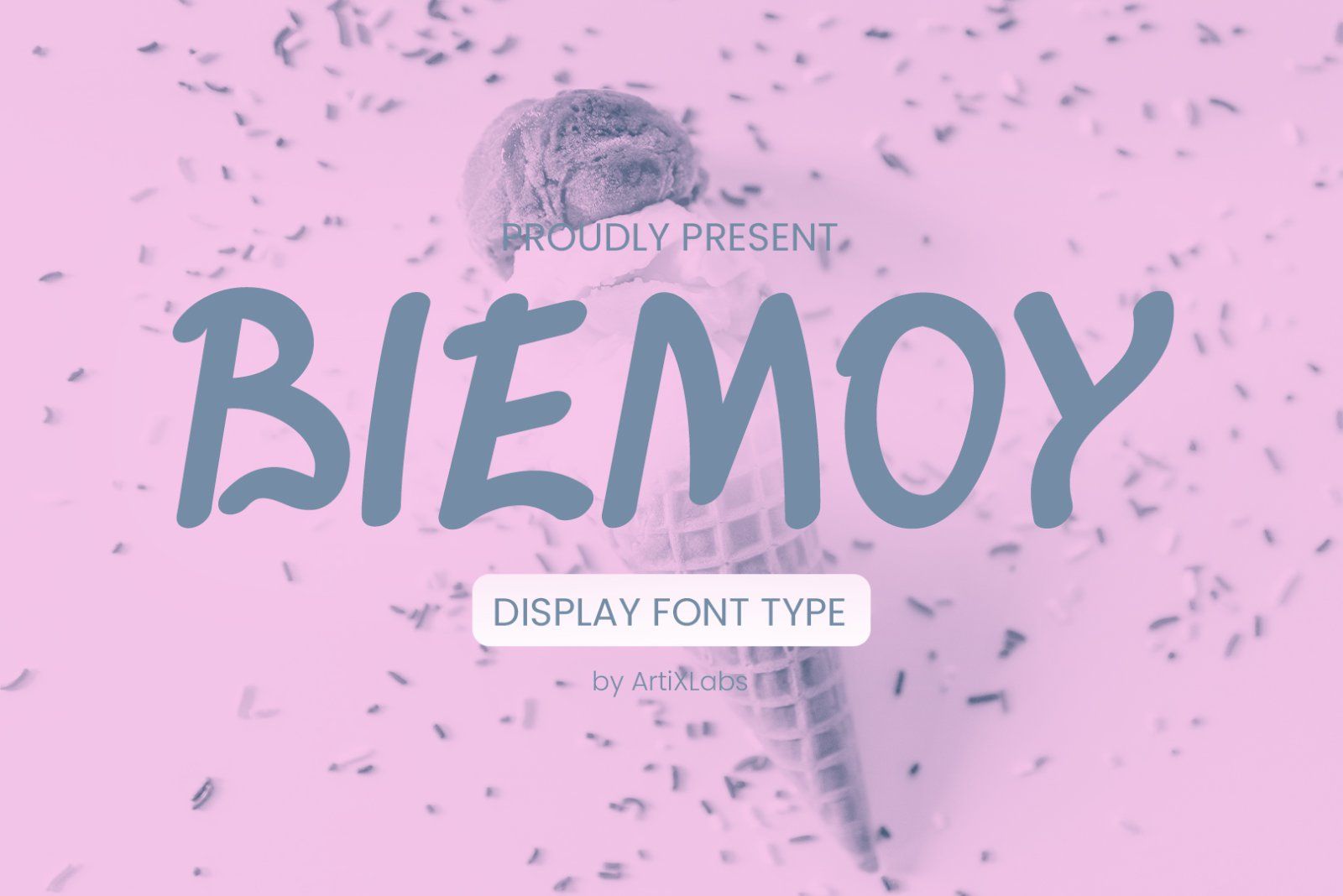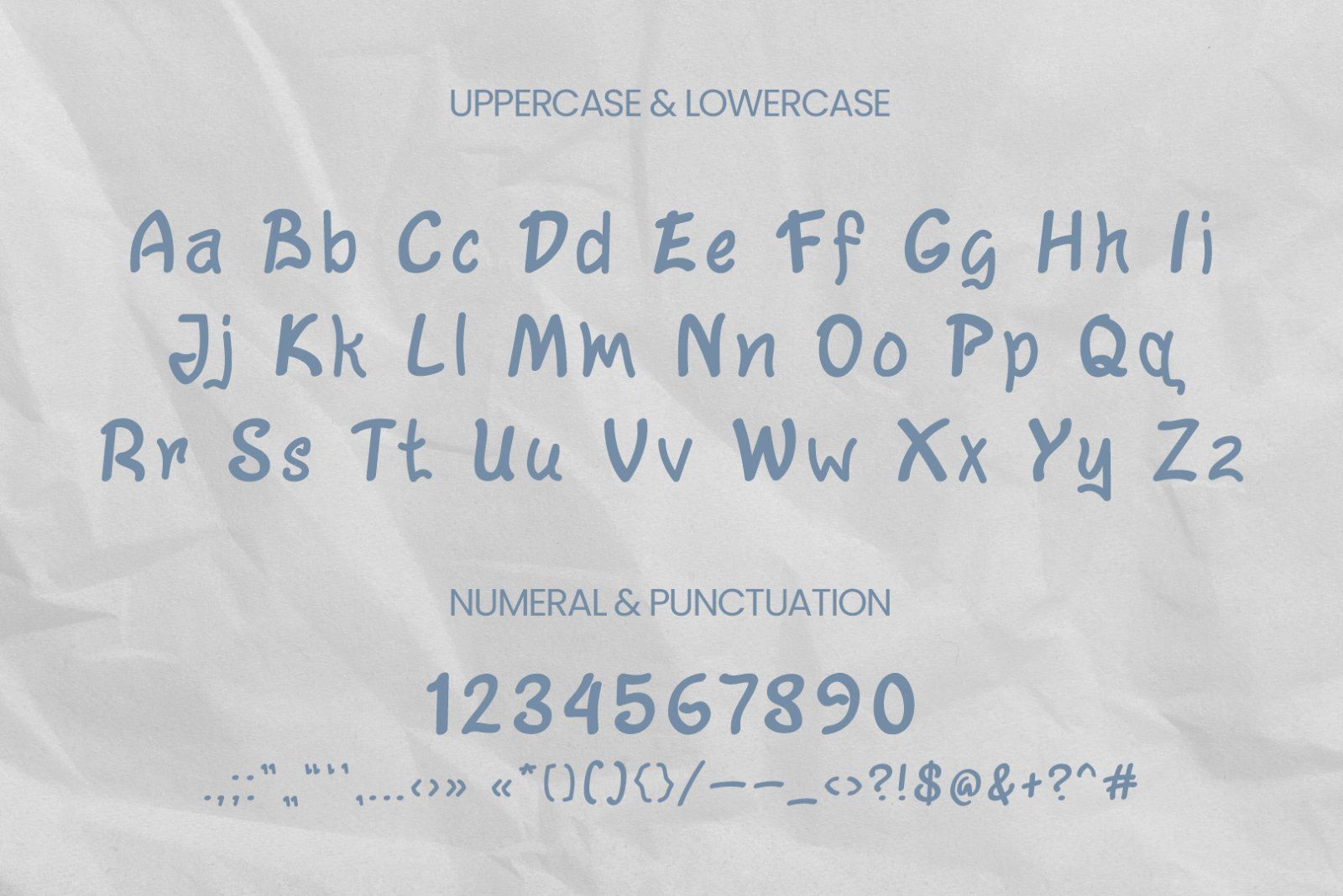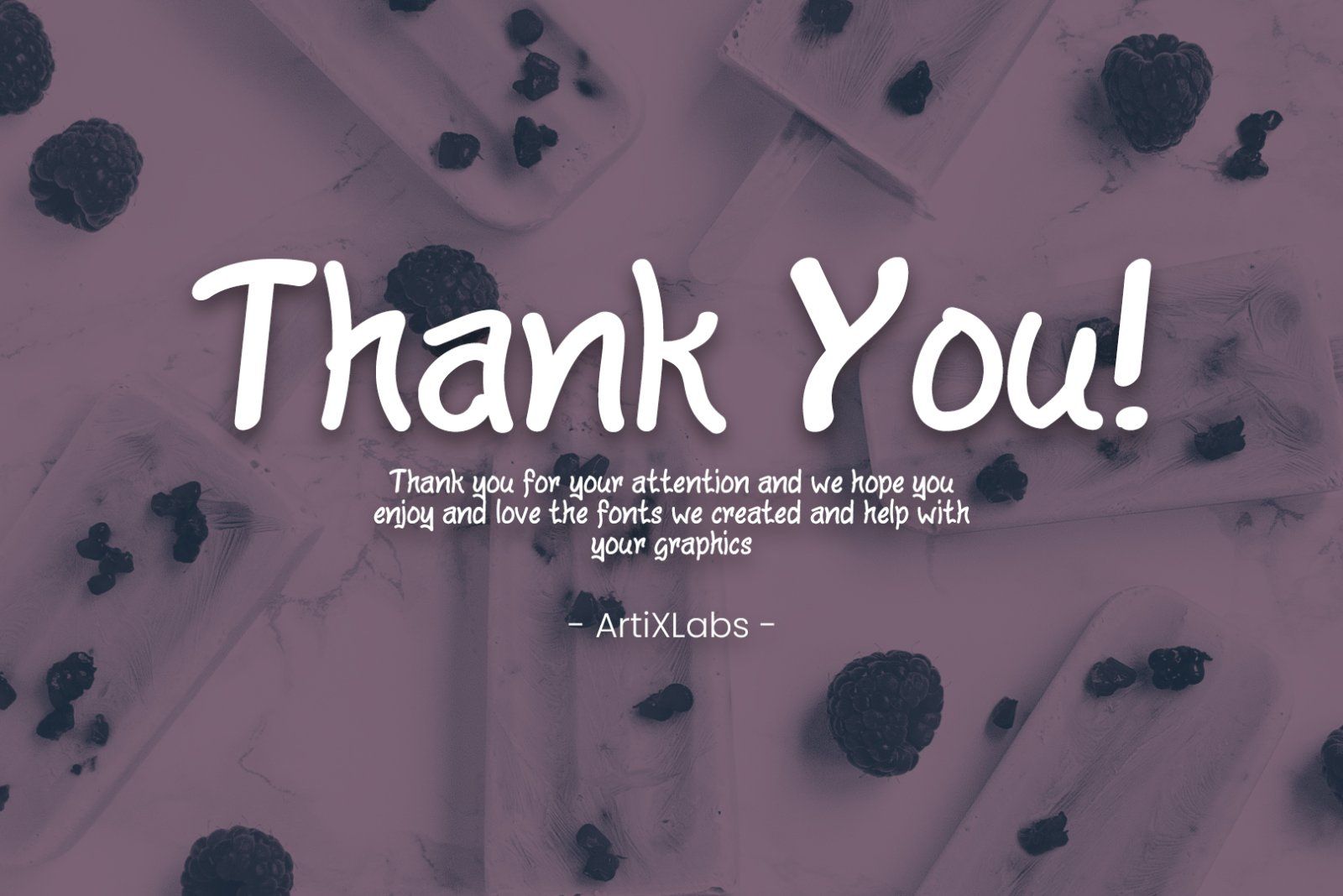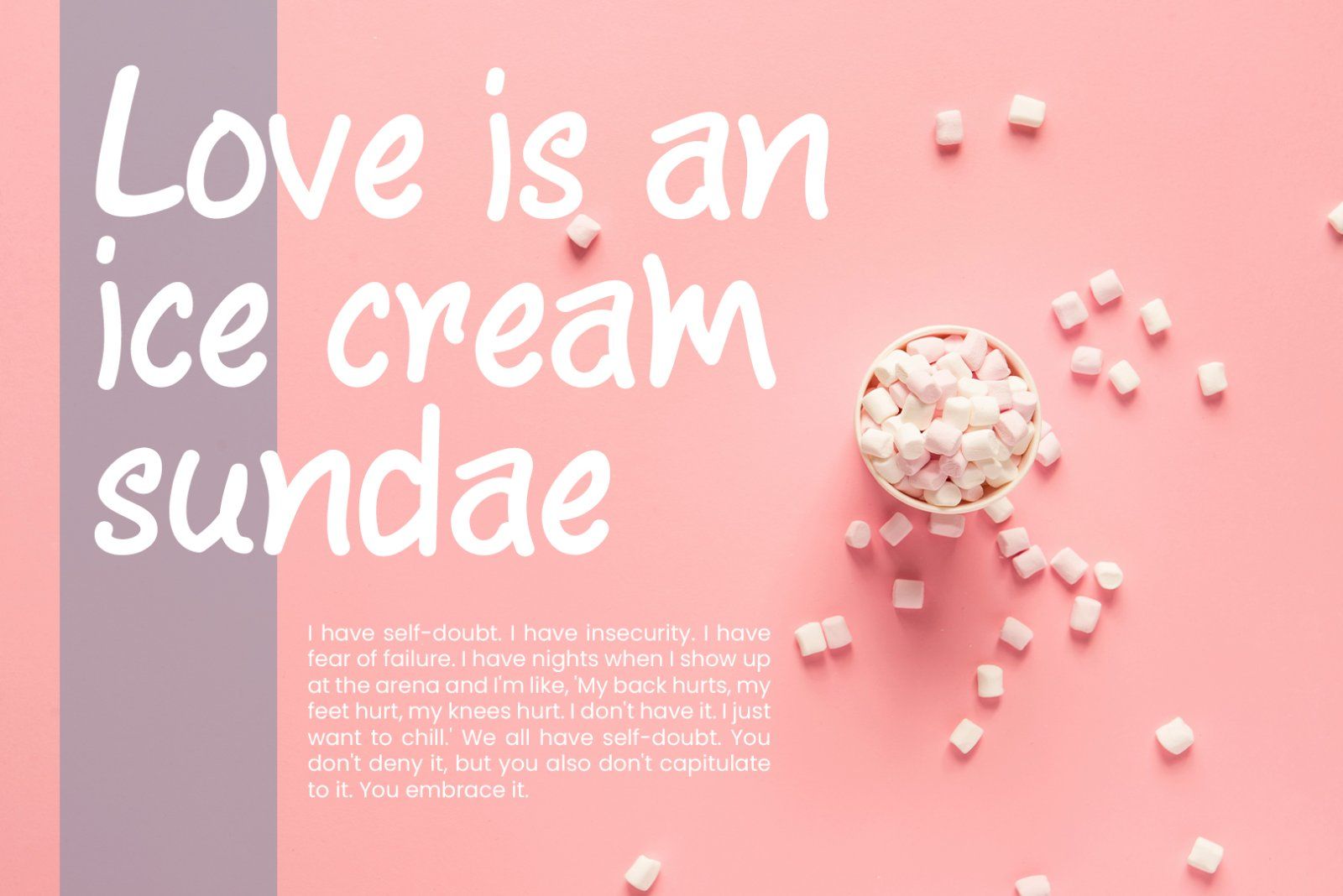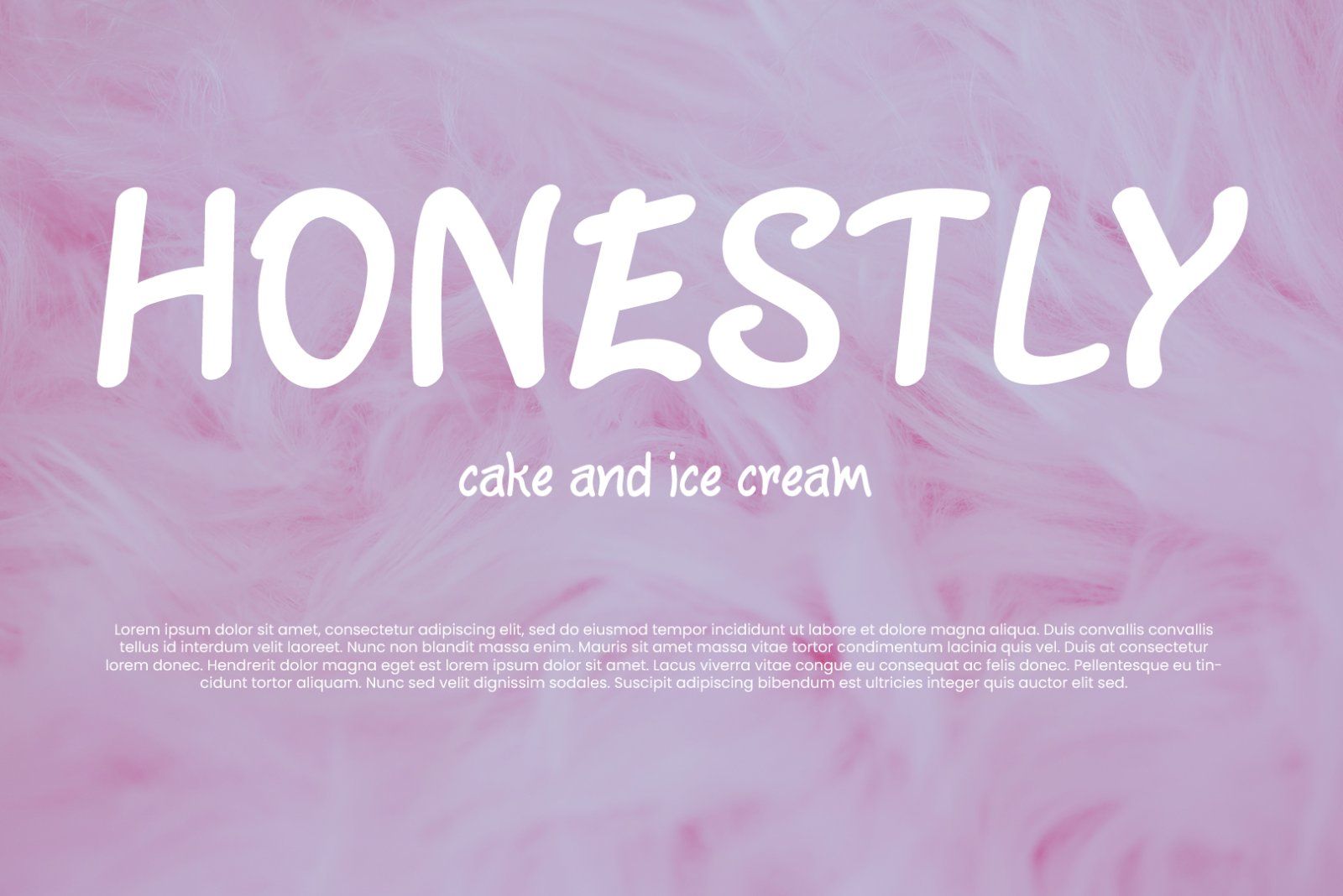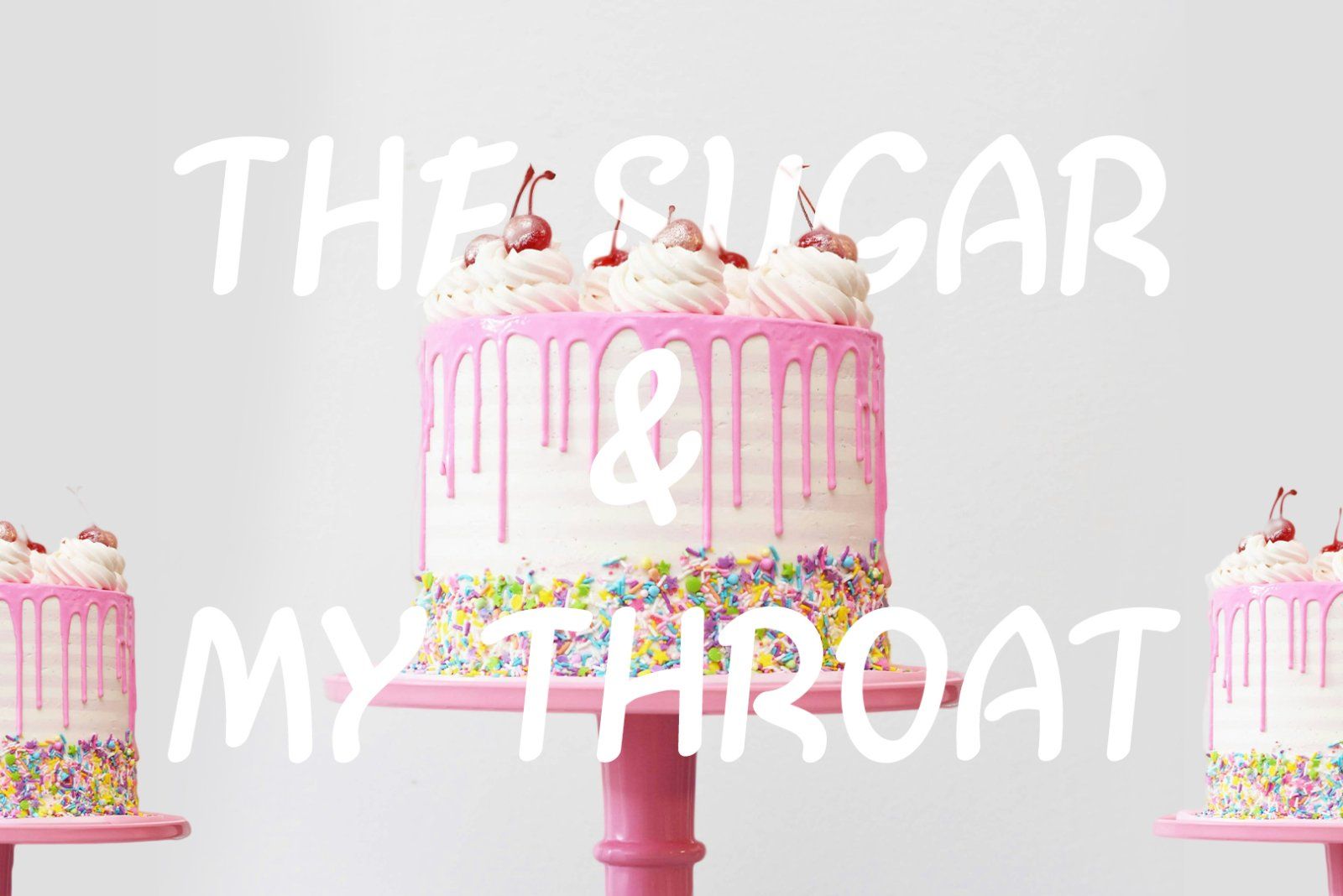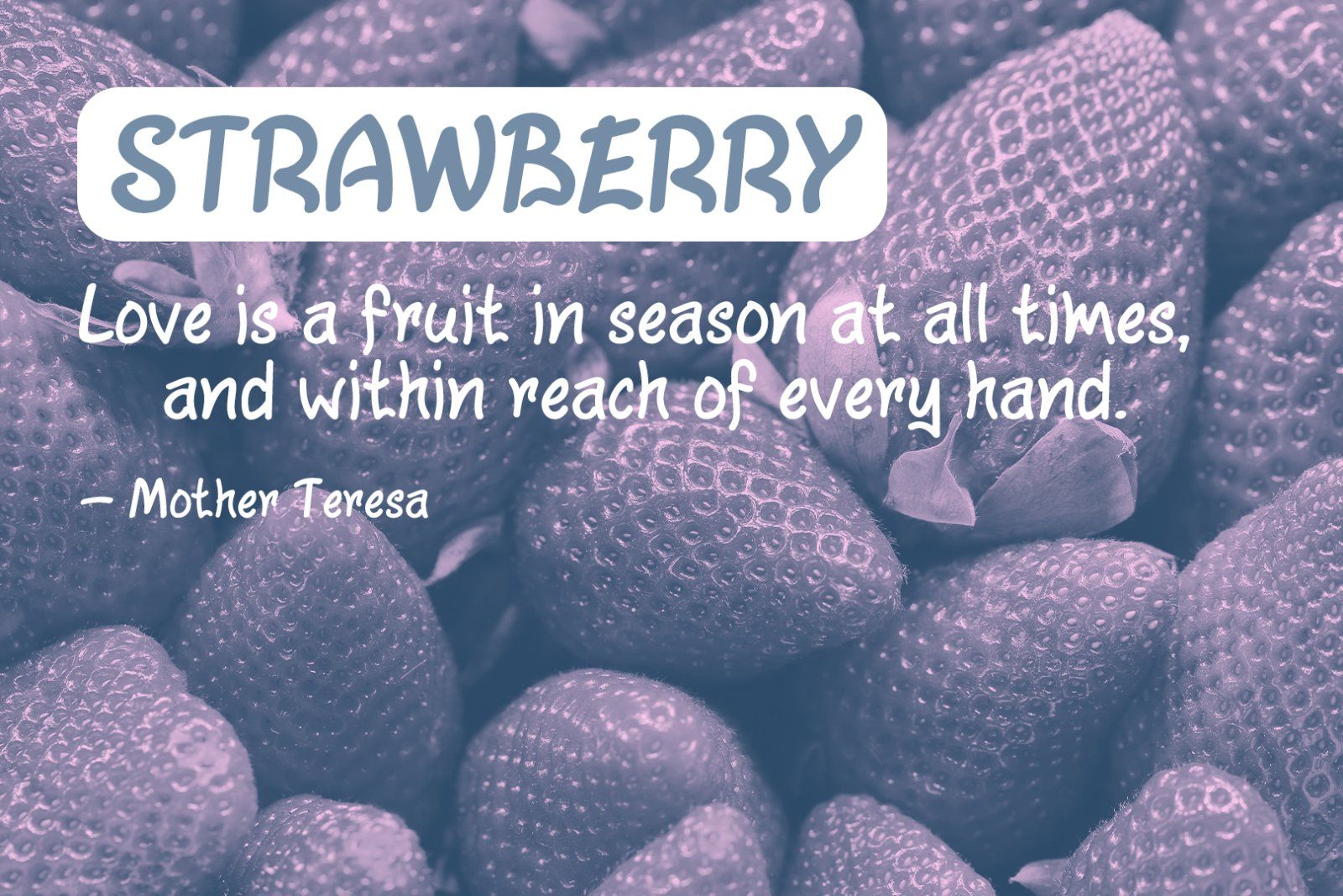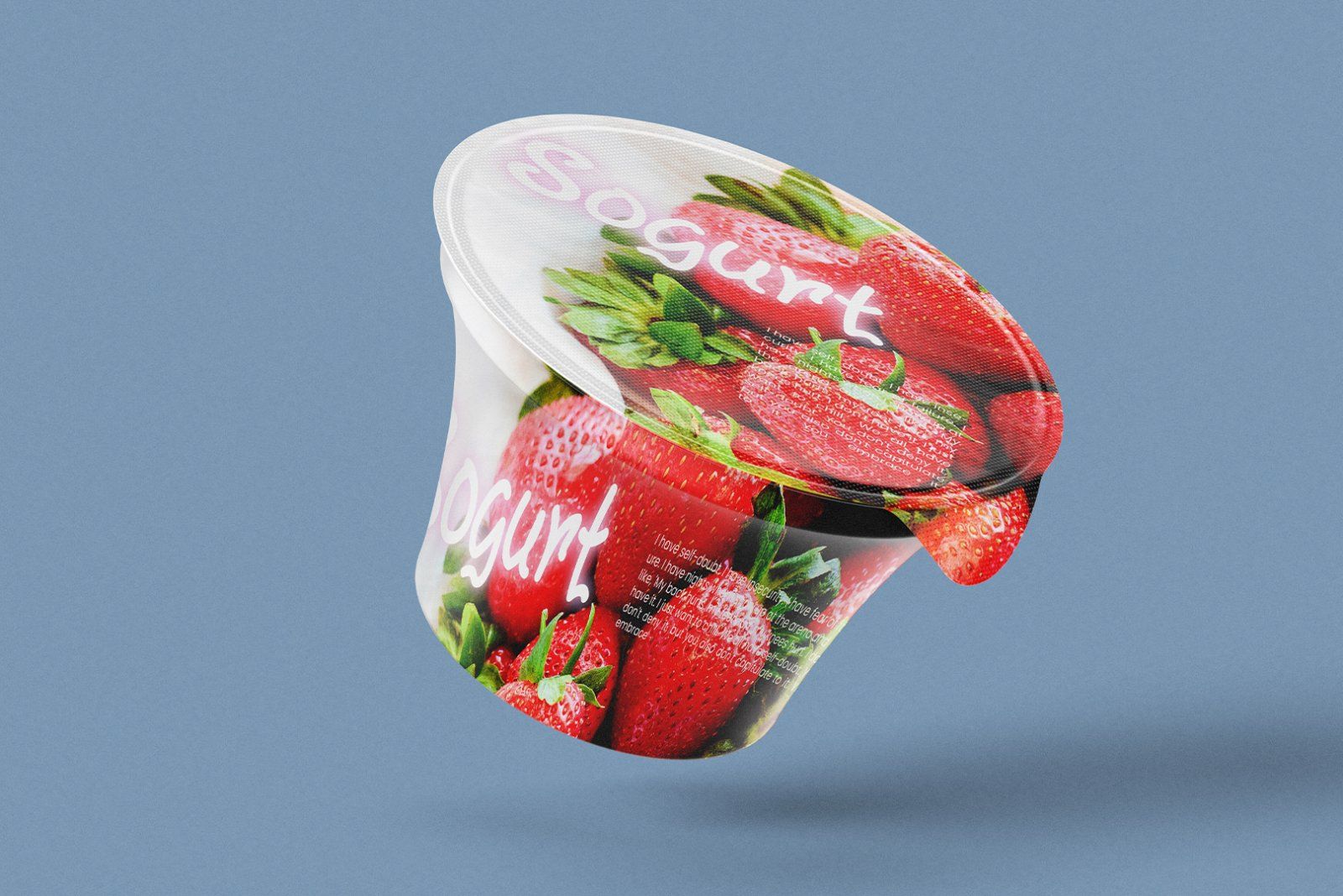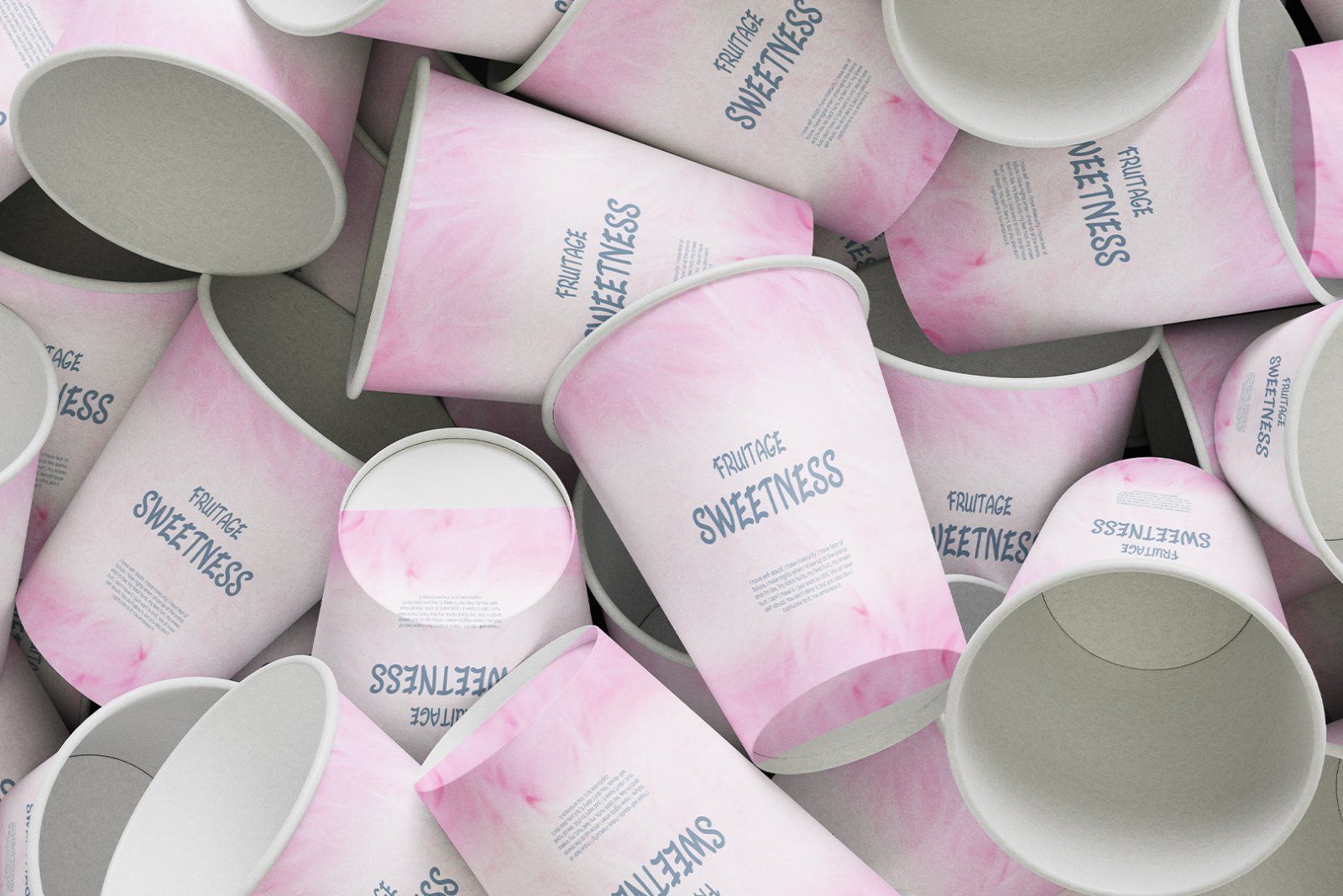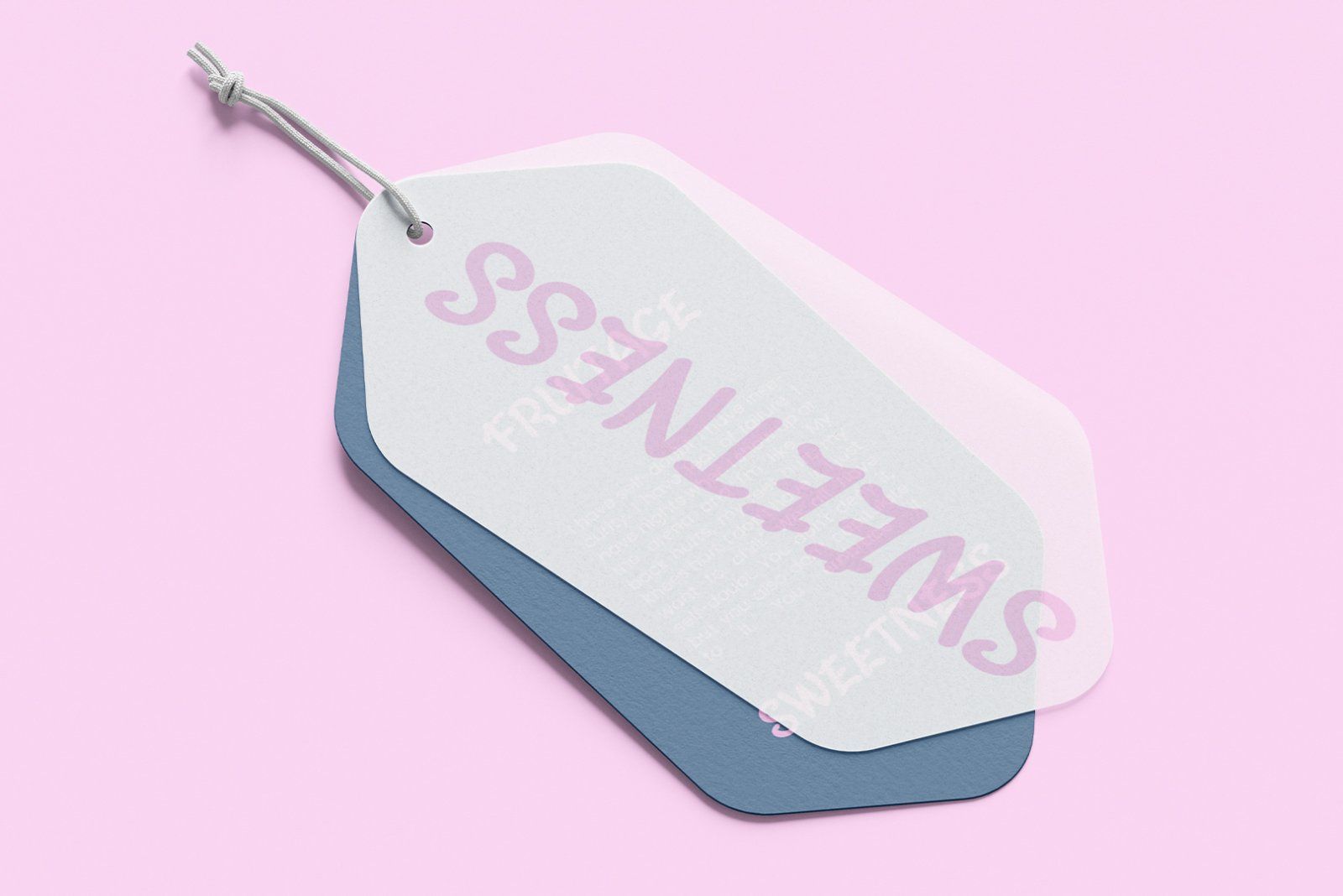
Introducing Biemoy - Playfull Font
This Font can be used for any variety of purposes, such as:
Event, Birthday, Ceremony, Packaging Products, Logo Type, Branding, T-Shirt Design, Website/Blog, Headline Magazine, Brochures and also can be used for other purpose.
This Font Template contains Playfull, Cheersfull, Creative, Professional and Unique Concept.
FEATURES
• Uppercase & Lowercase letters
• Numbering and Punctuations